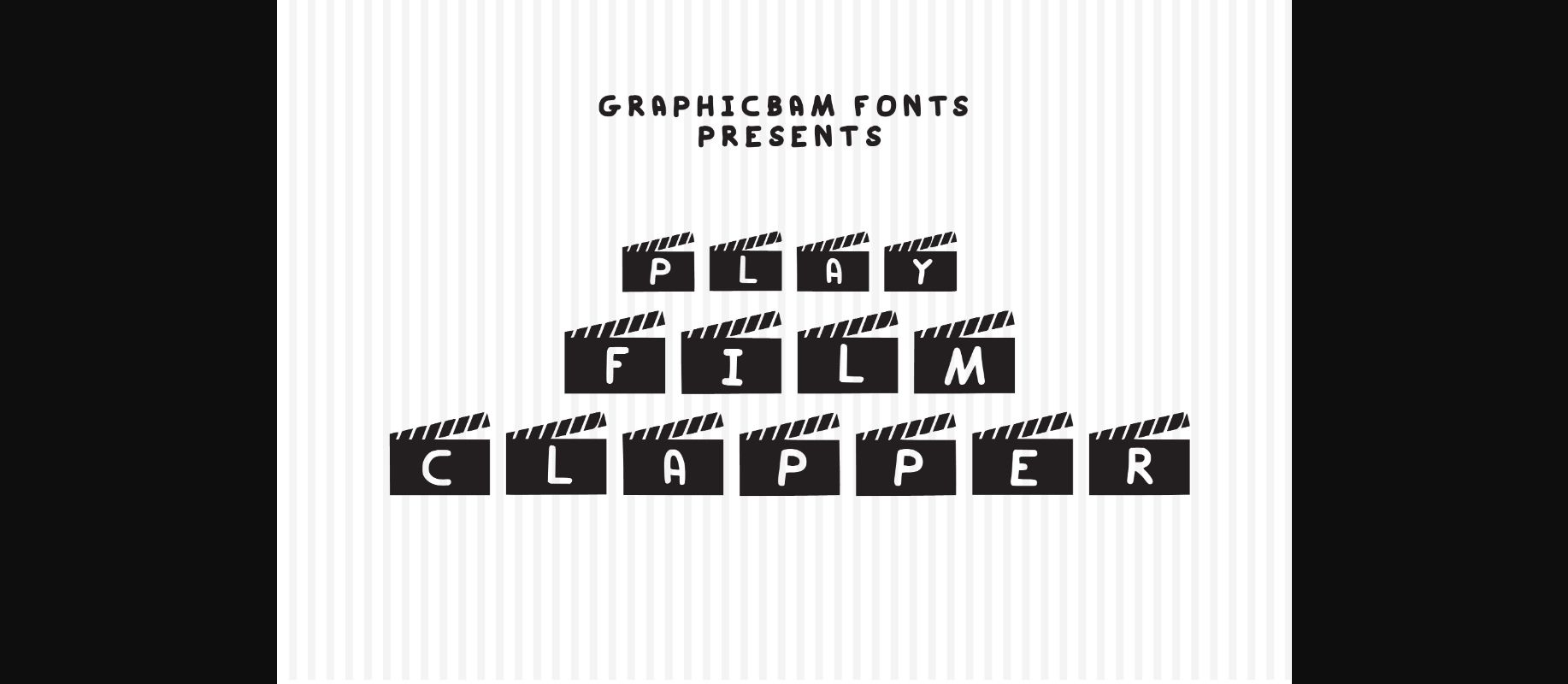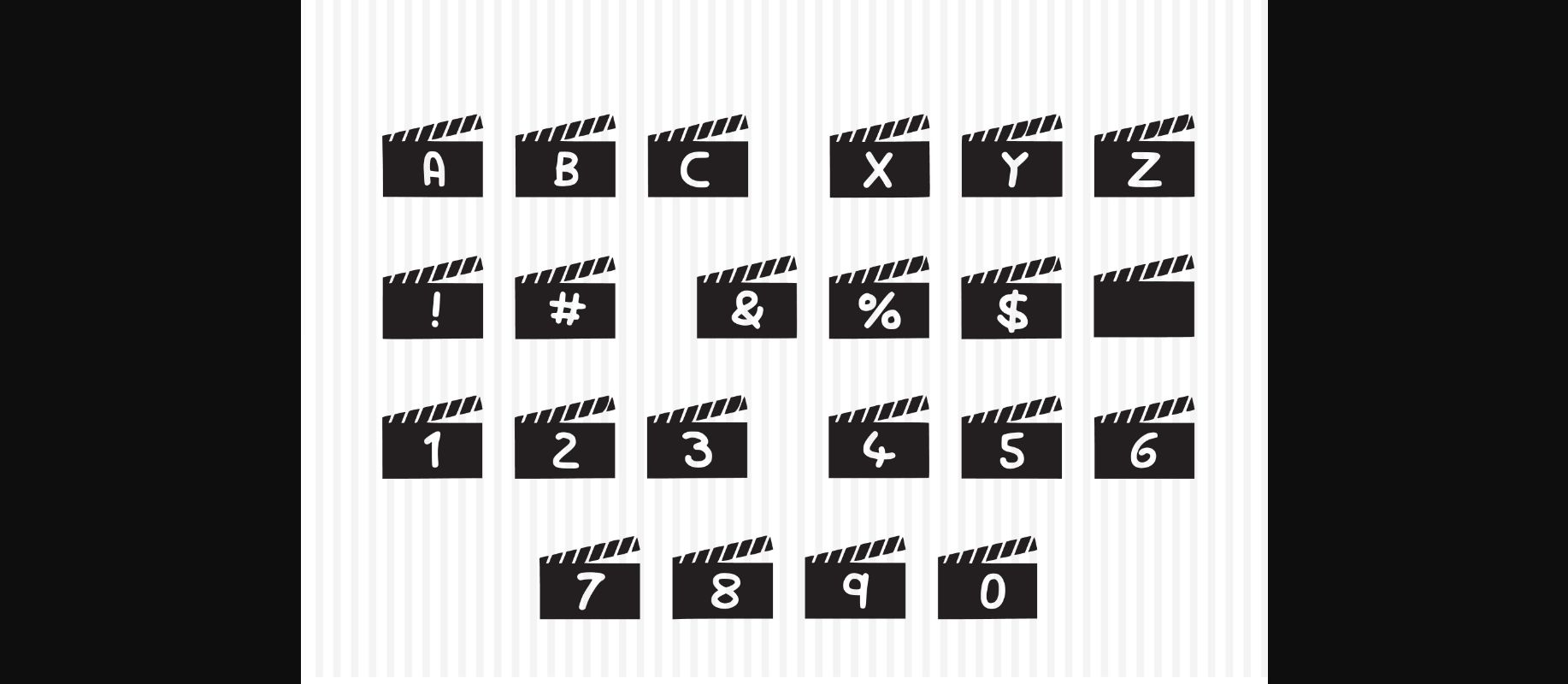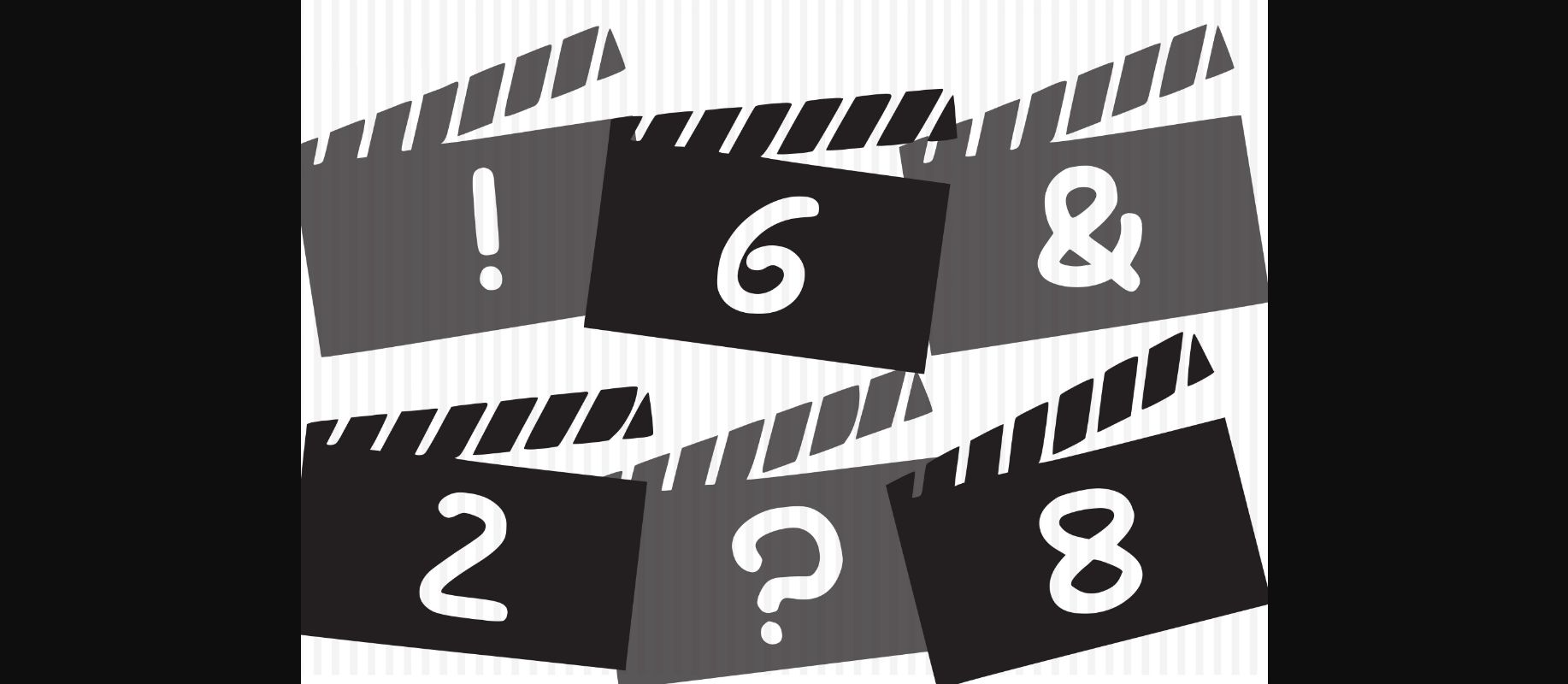
About Play Film Clapper Font
Play Film Clapper is a cool looking and interesting decorative font, featuring a film symbol on each character. No matter the topic, this font will be an incredible asset to your fonts’ library, as it has the potential to elevate any creation.